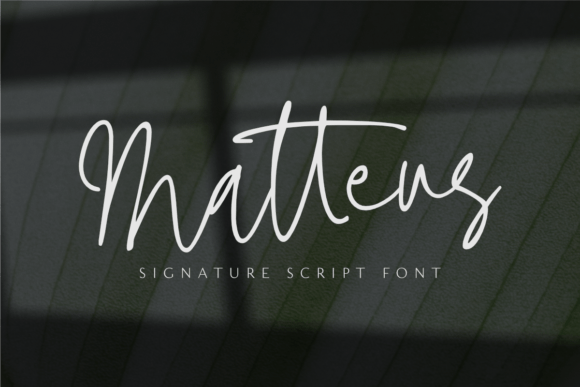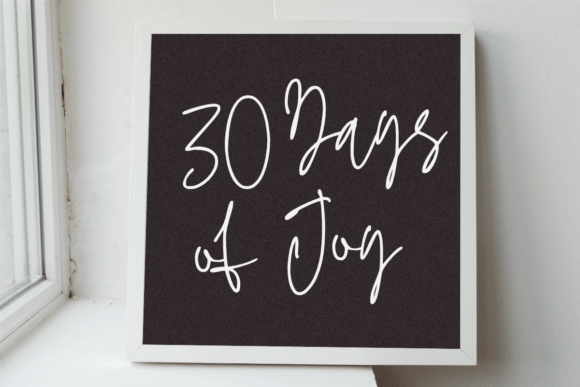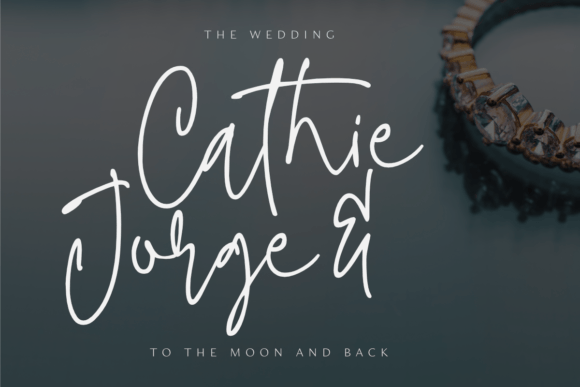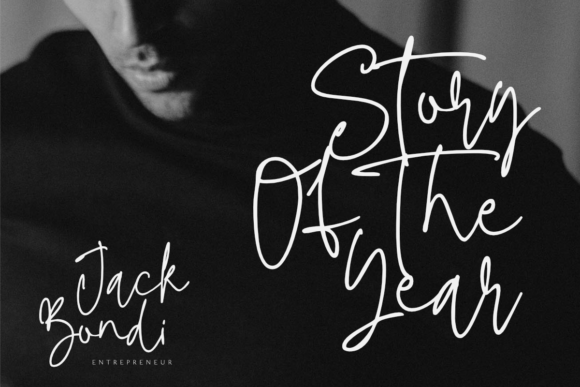
Matteus Font
About Matteus Font
**Matteus: A Fresh and Beautifully Crafted Signature Script Font**
**Matteus** is a new and fresh signature script font meticulously crafted to bring elegance and style to your designs. This font is well-suited for a wide range of applications, making it an excellent choice for branding, logos, social media posts, and any other project where you desire an awesome signature style.
**Matteus** distinguishes itself with its beautifully designed signature-style script letterforms, radiating a sense of authenticity and uniqueness. Each character is crafted with precision, making it an ideal choice for projects that demand a signature-style touch.
This font’s versatility ensures it can elevate various design projects. Whether you’re working on branding and logos, social media graphics, or any creative endeavor, **Matteus** adds a touch of elegance and personalization to your work.
In branding and logos, this font ensures your visual identity conveys authenticity and uniqueness, leaving a memorable impression on your audience.
For social media graphics and personal branding, **Matteus** adds a stylish and personalized touch, helping you stand out and connect with your audience.
In conclusion, **Matteus** is more than just a font; it’s a design asset that brings freshness and style to your creative projects. Whether you’re designing for personal or professional use, choose **Matteus** to infuse your work with its signature-style charm. Embrace its elegance, and let your creativity shine with authenticity and style.